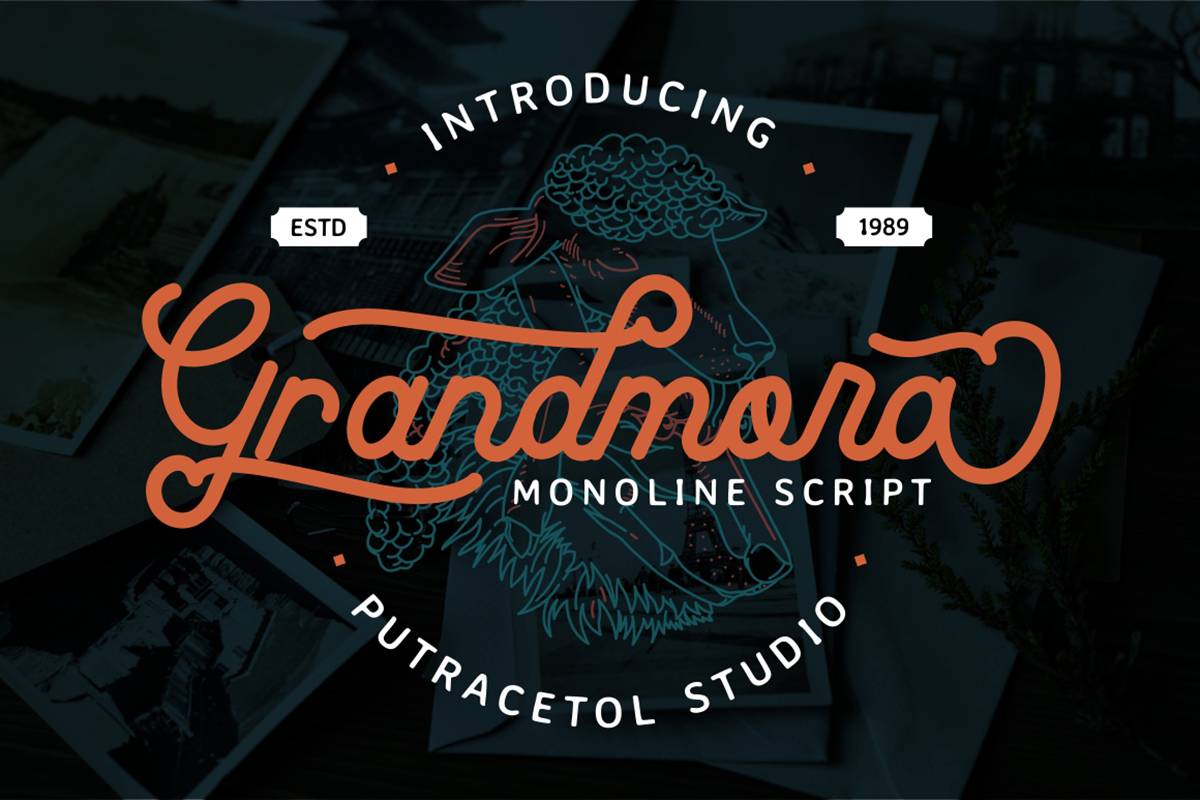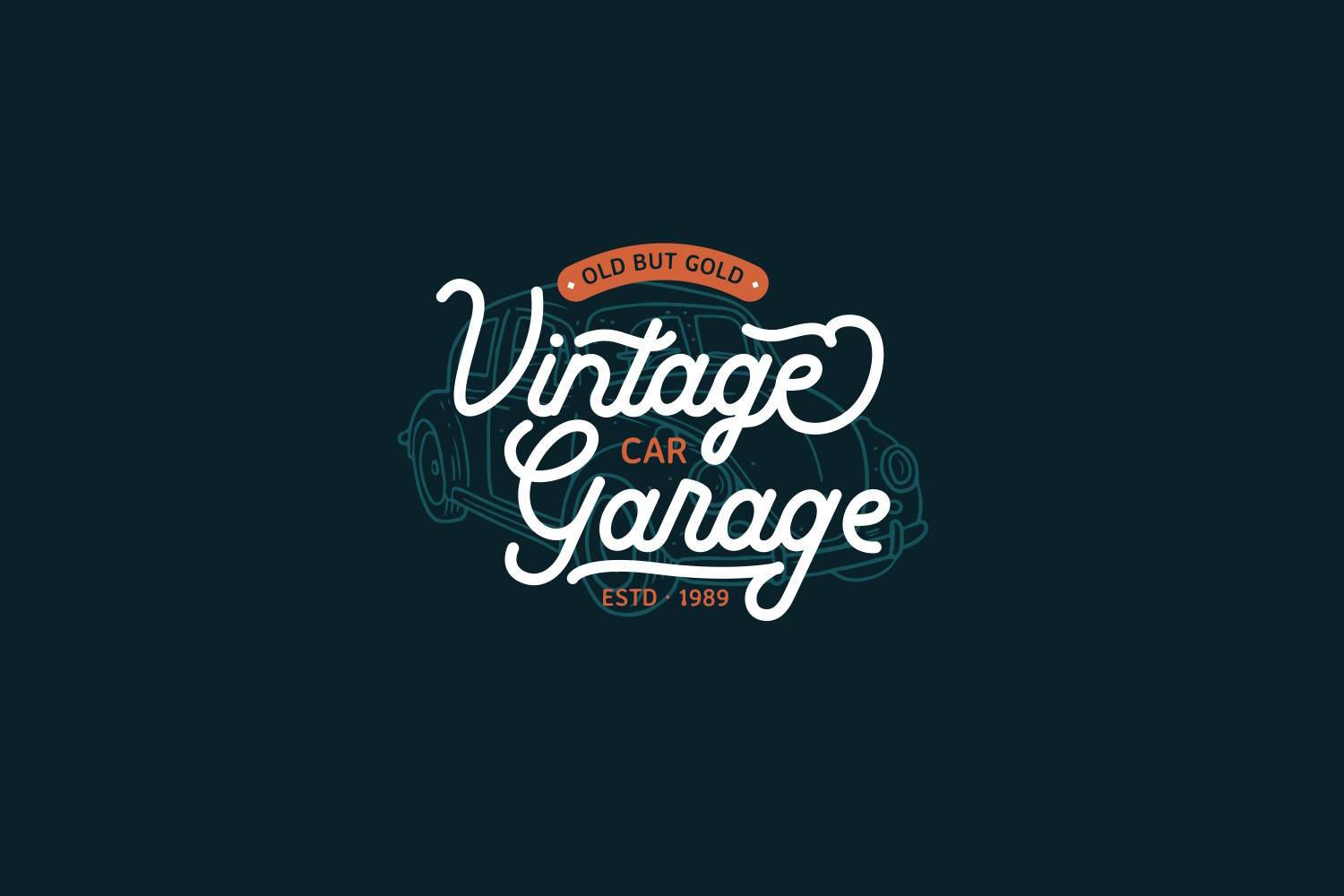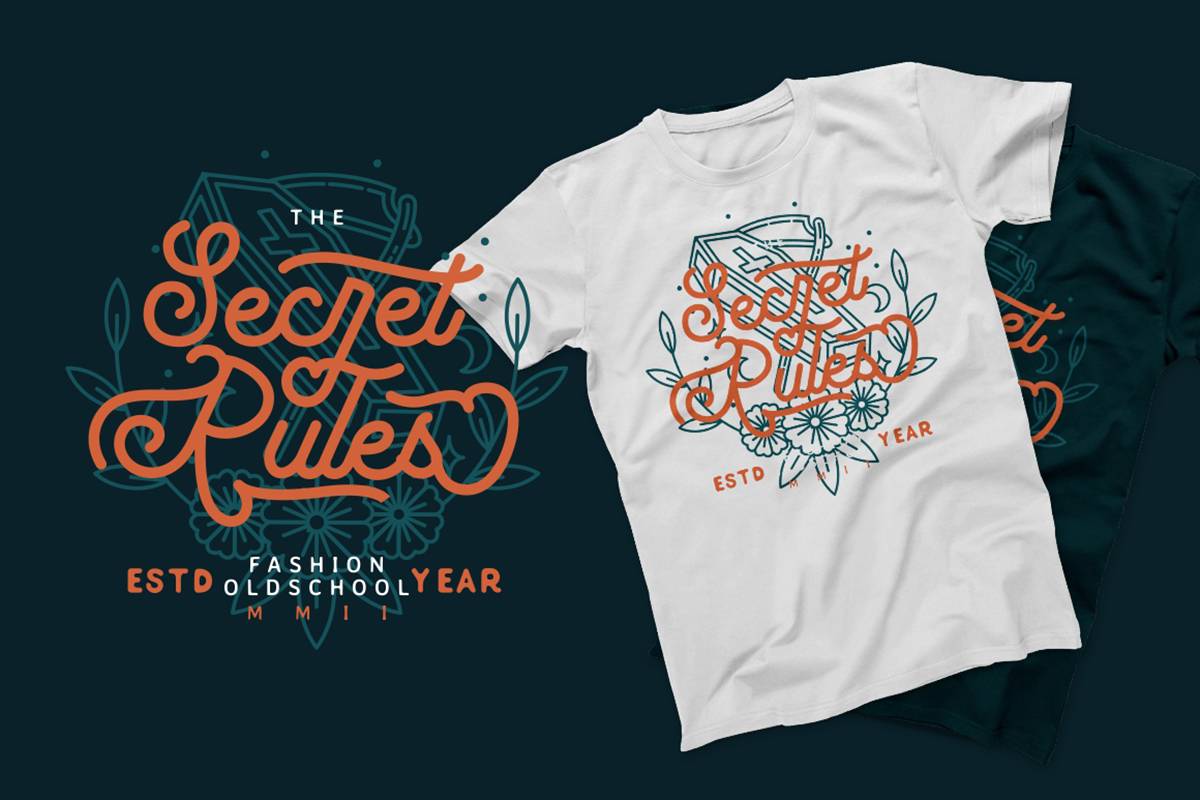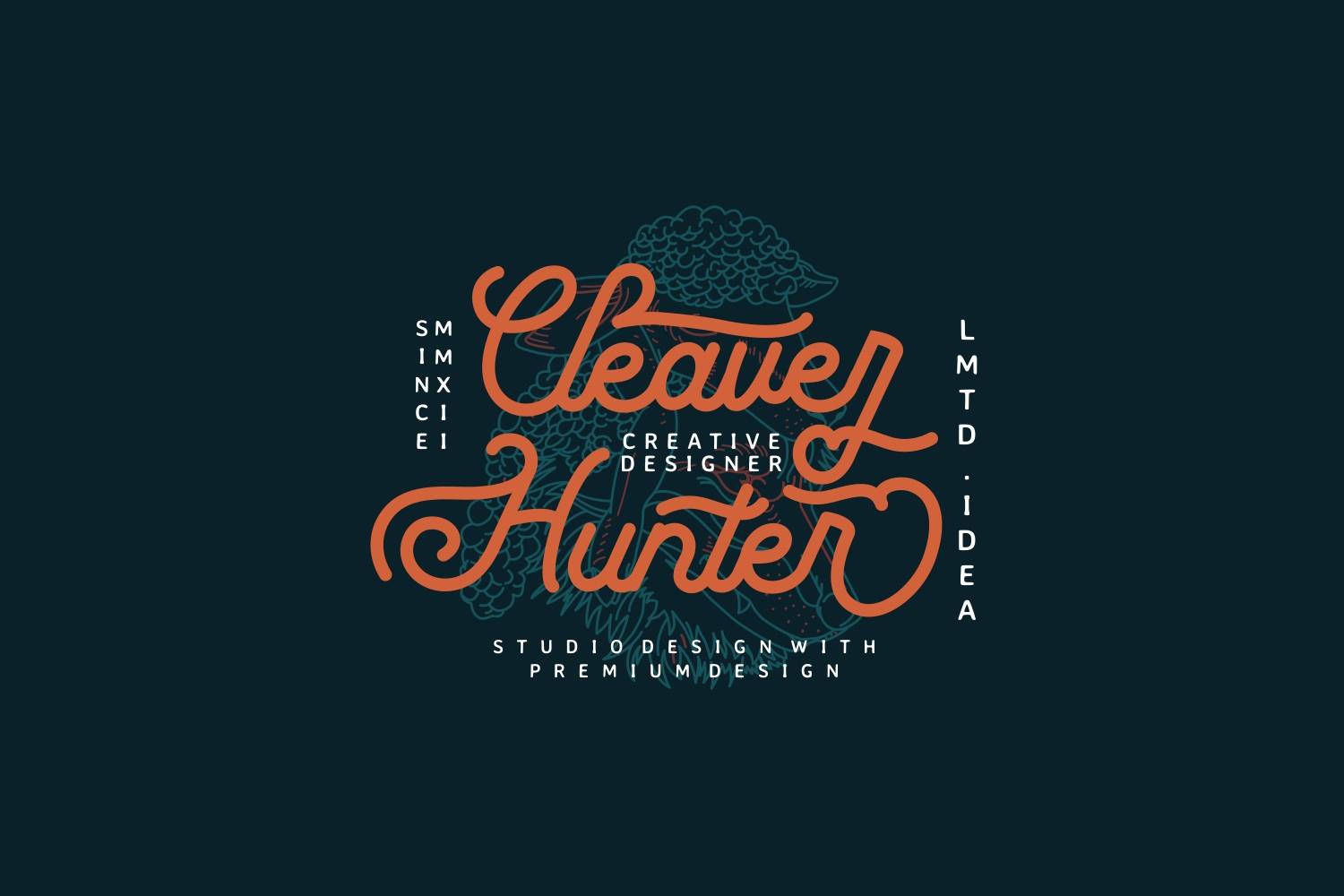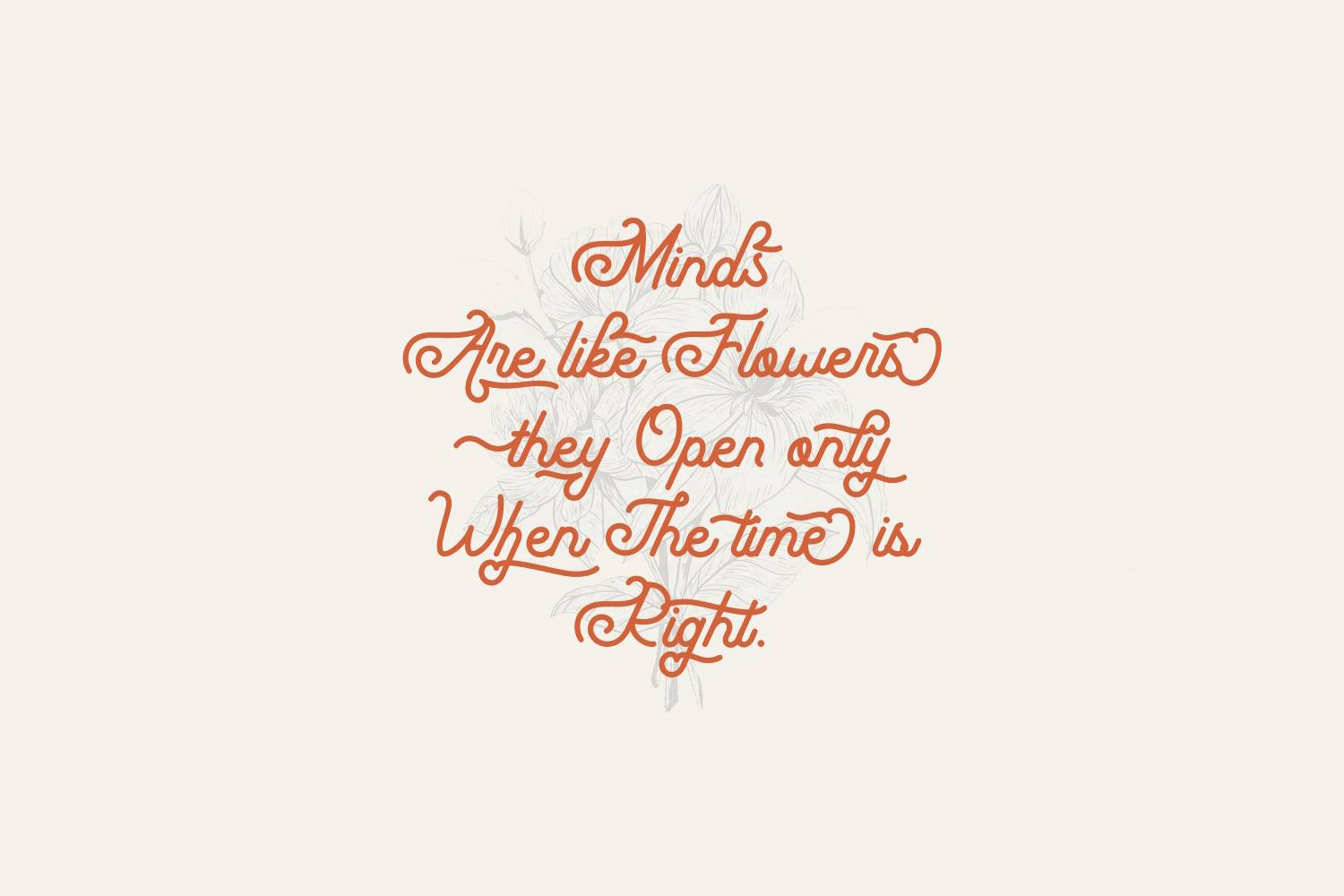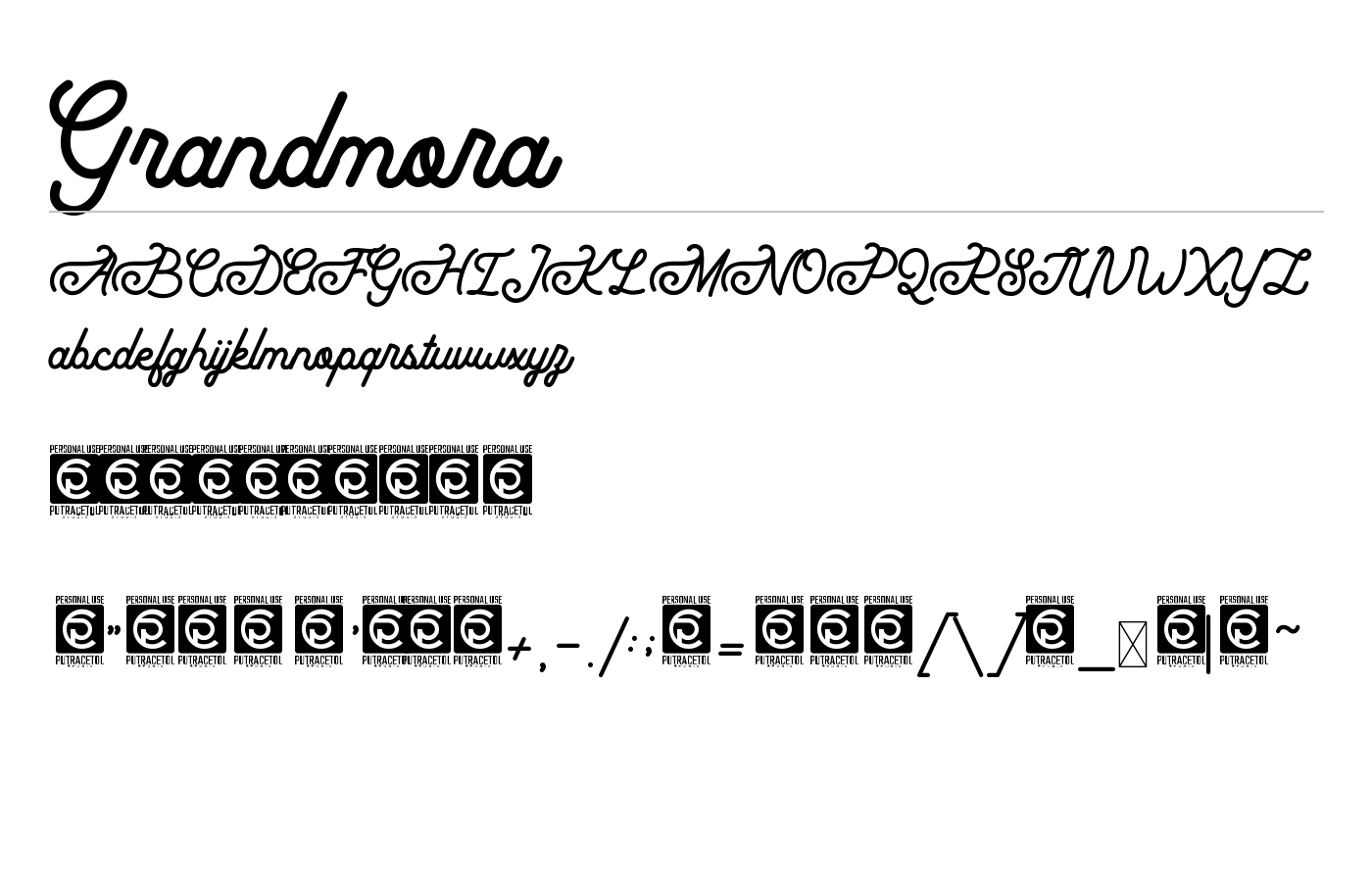
Grandmora is a lively script font with a smooth, flowing style and a playful yet elegant personality. Its consistent medium weight and cursive letterforms convey a friendly and approachable feel, making it ideal for creative branding, invitations, and casual headlines where a personal, handcrafted touch is needed. This font shines best in creative projects that benefit from a stylish, informal look with a hint of sophistication.
Grandmora Font
About Grandmora Font